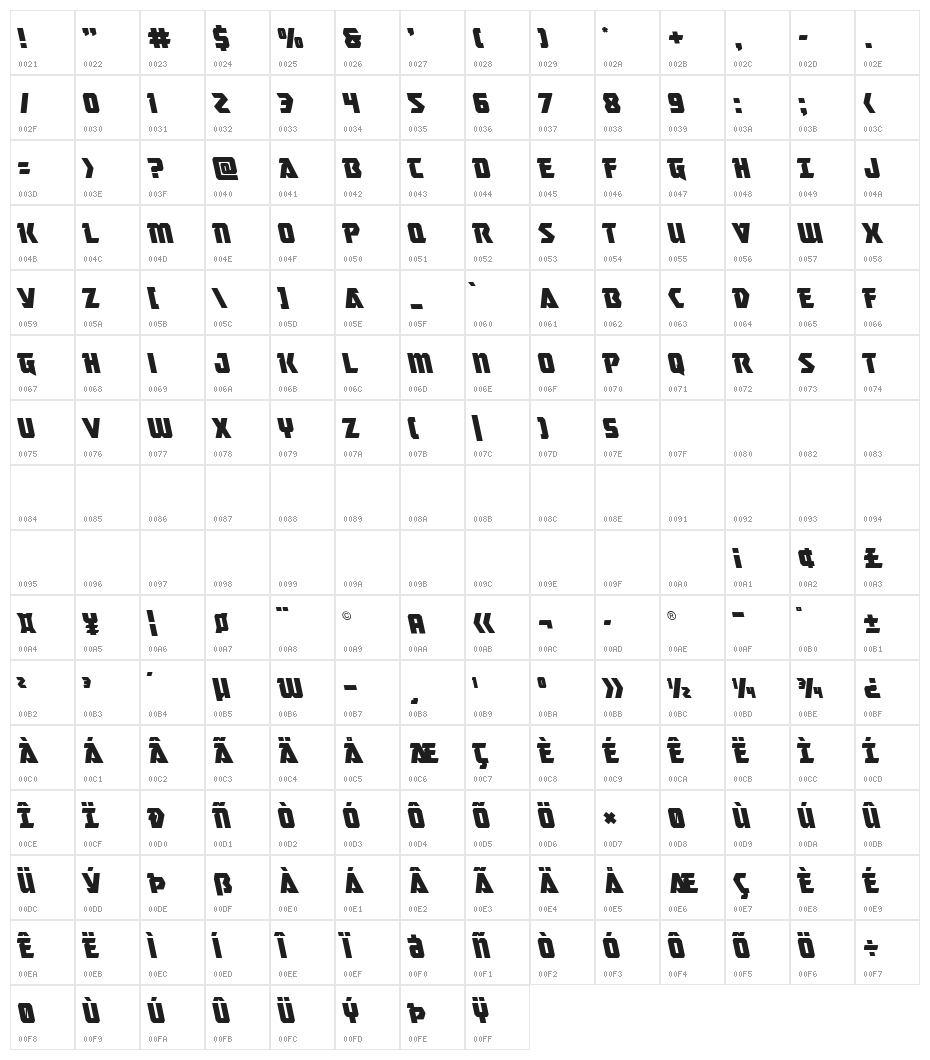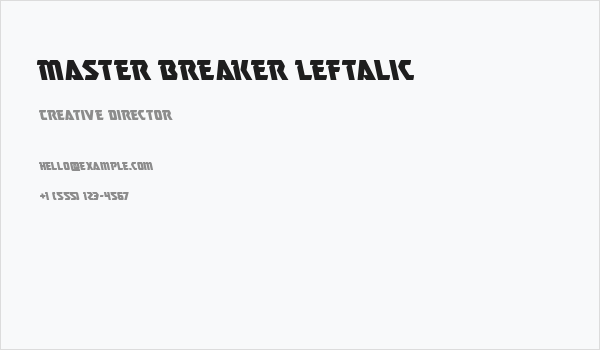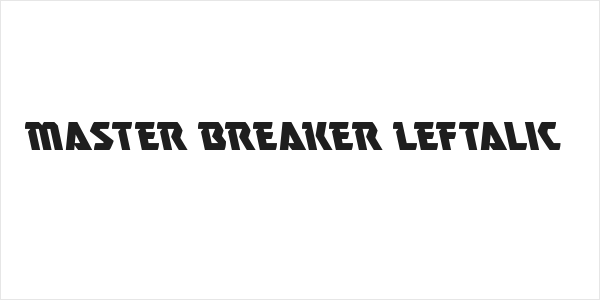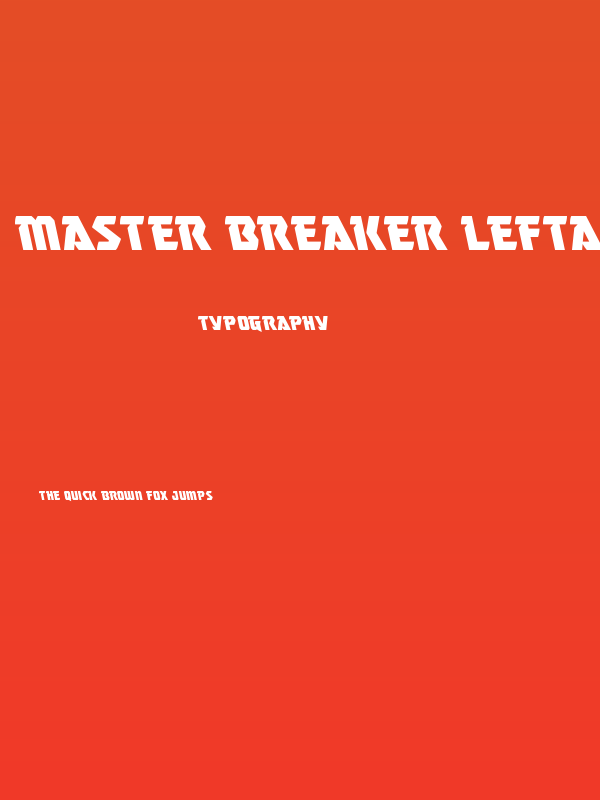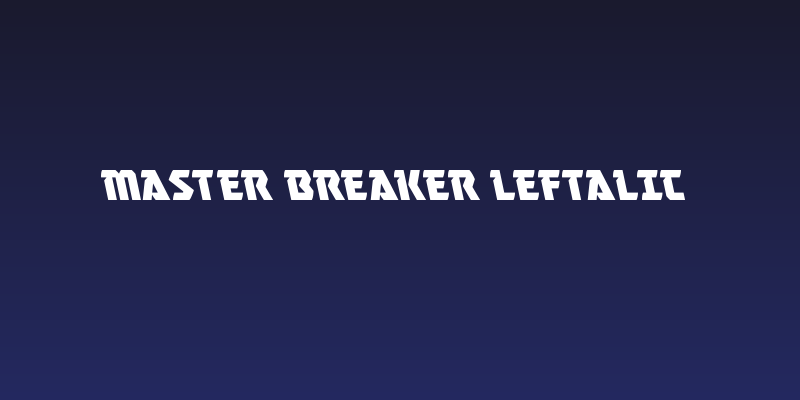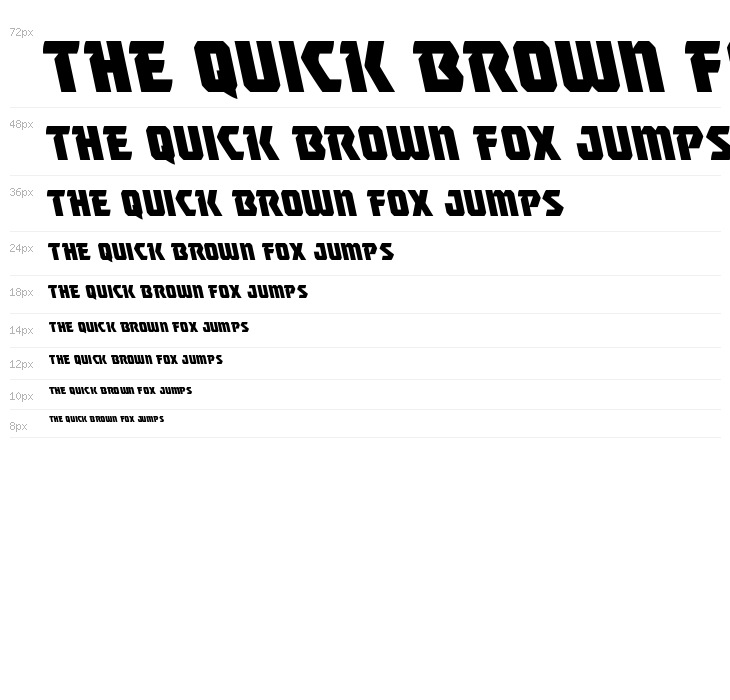
Master Breaker Leftalic Font
Master Breaker Leftalic Description
This font features a bold, angular design with a distinct geometric style. The characters are sharply cut with a consistent slant, giving them a dynamic and aggressive appearance. The uppercase and lowercase letters maintain a uniform height, contributing to a cohesive look. The numbers and special characters are crafted with the same boldness and angularity, ensuring consistency across all glyphs. This font's unique style makes it stand out, ideal for projects that require a strong visual impact.
| Overall Style | Modern, Dynamic |
| Proposed Projects | Ideal for sports branding, video game titles, poster designs, and any project needing a strong, impactful typeface. |